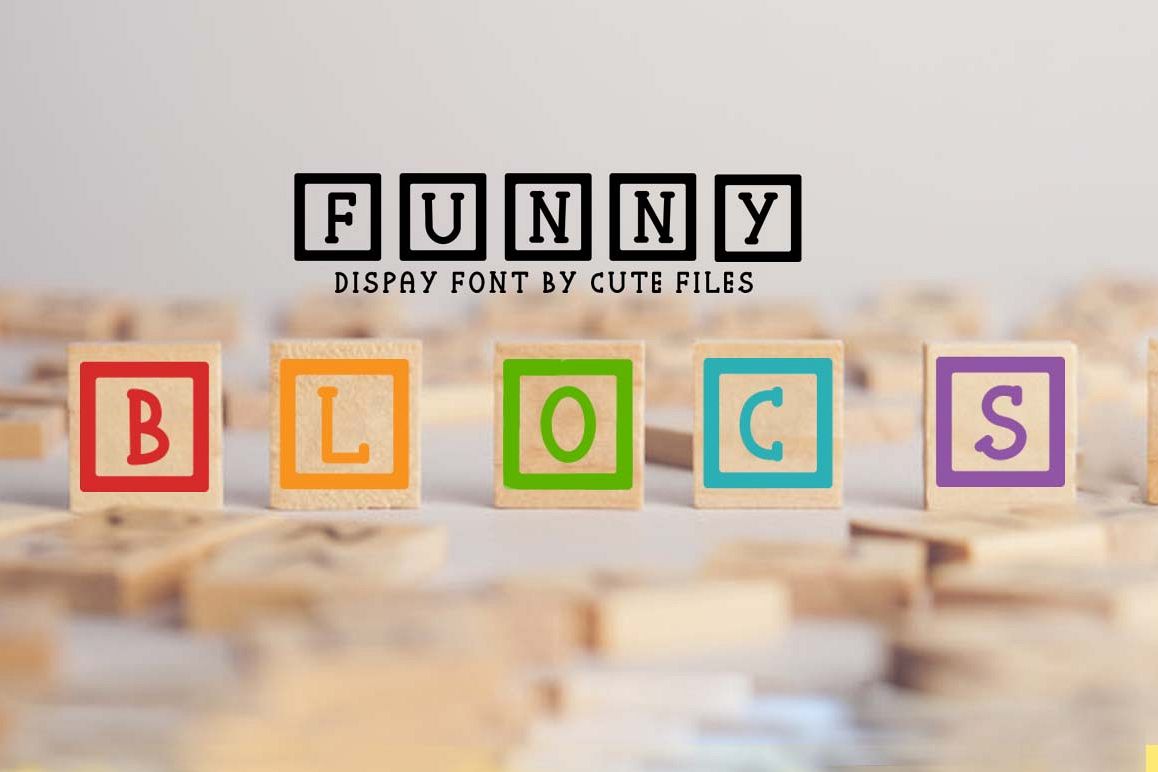
Funny blocks font for building blocks party is a dingbats typography inspired by cubes for children these blocks are all over my house :) so I can not stop thinking about them!
This font contains the alphabet of the A-Z and numbers of 0-9 and some symbols
Funny blocks can help you customize cubes with the name or age of your little one if you are thinking about a themed birthday party or doing small and fun exercises to teach the little ones to read!